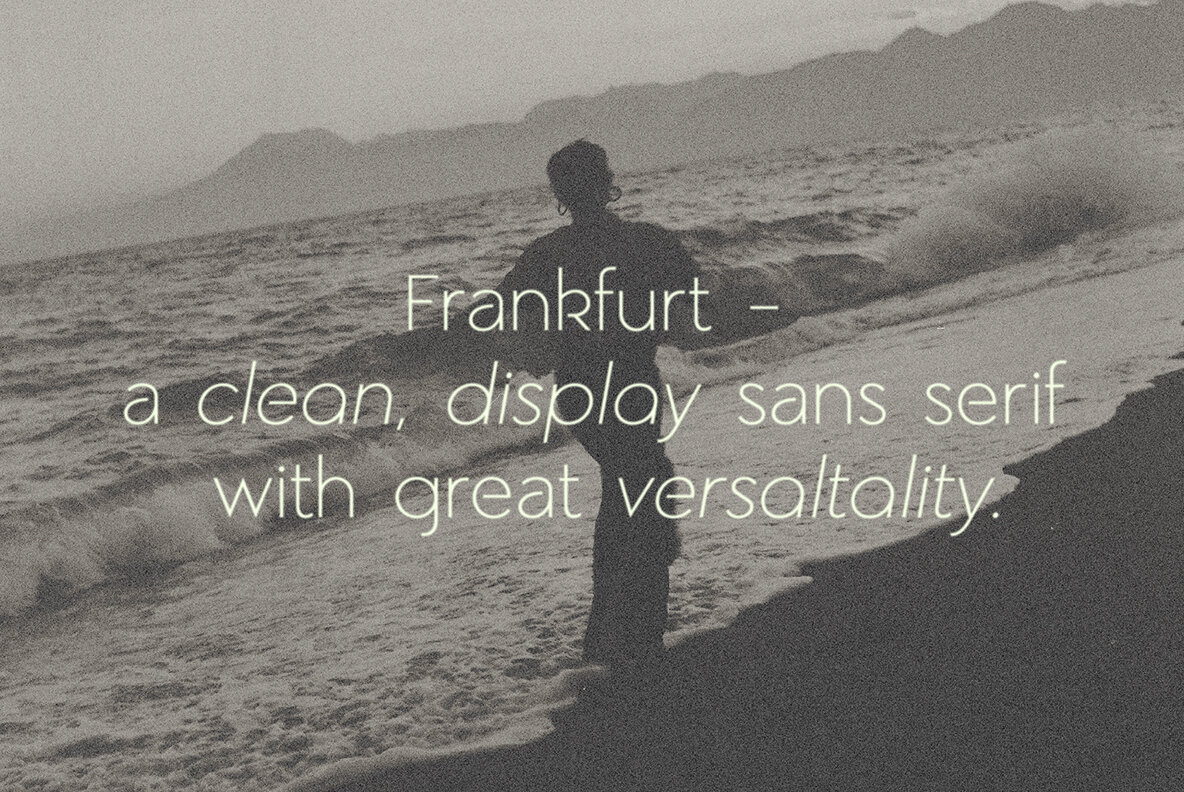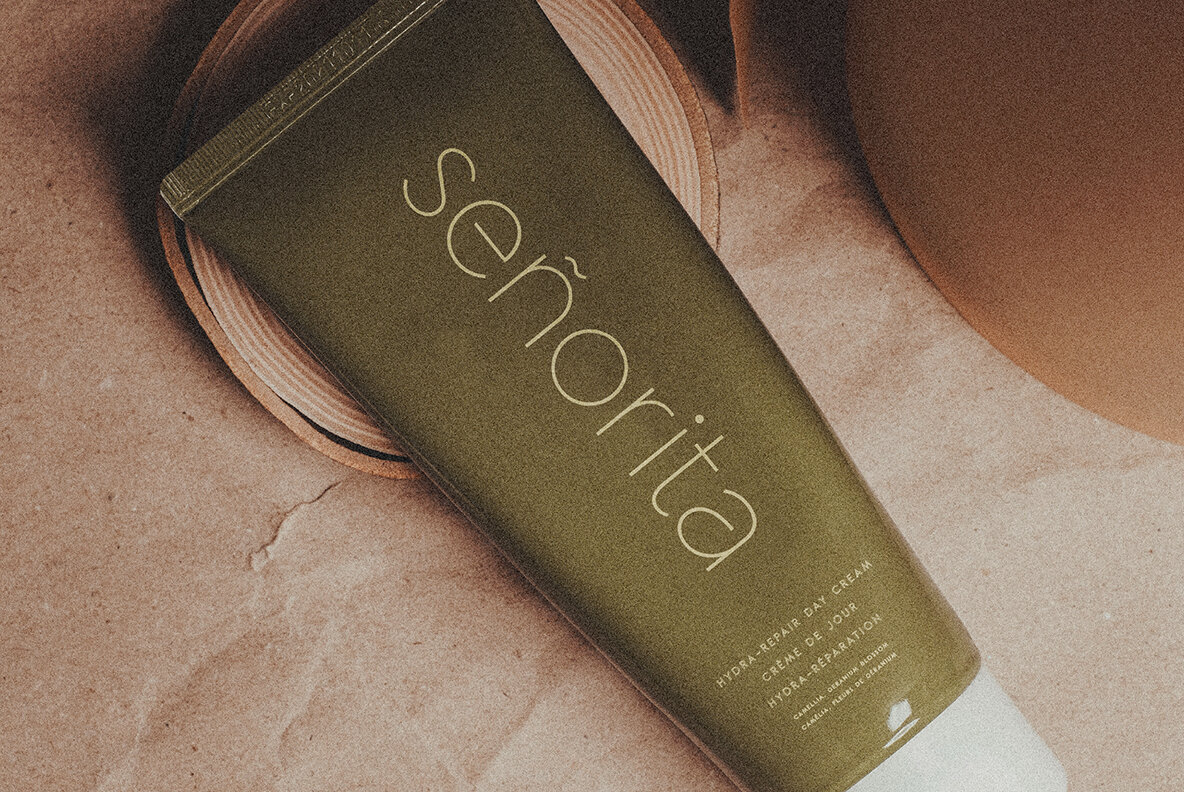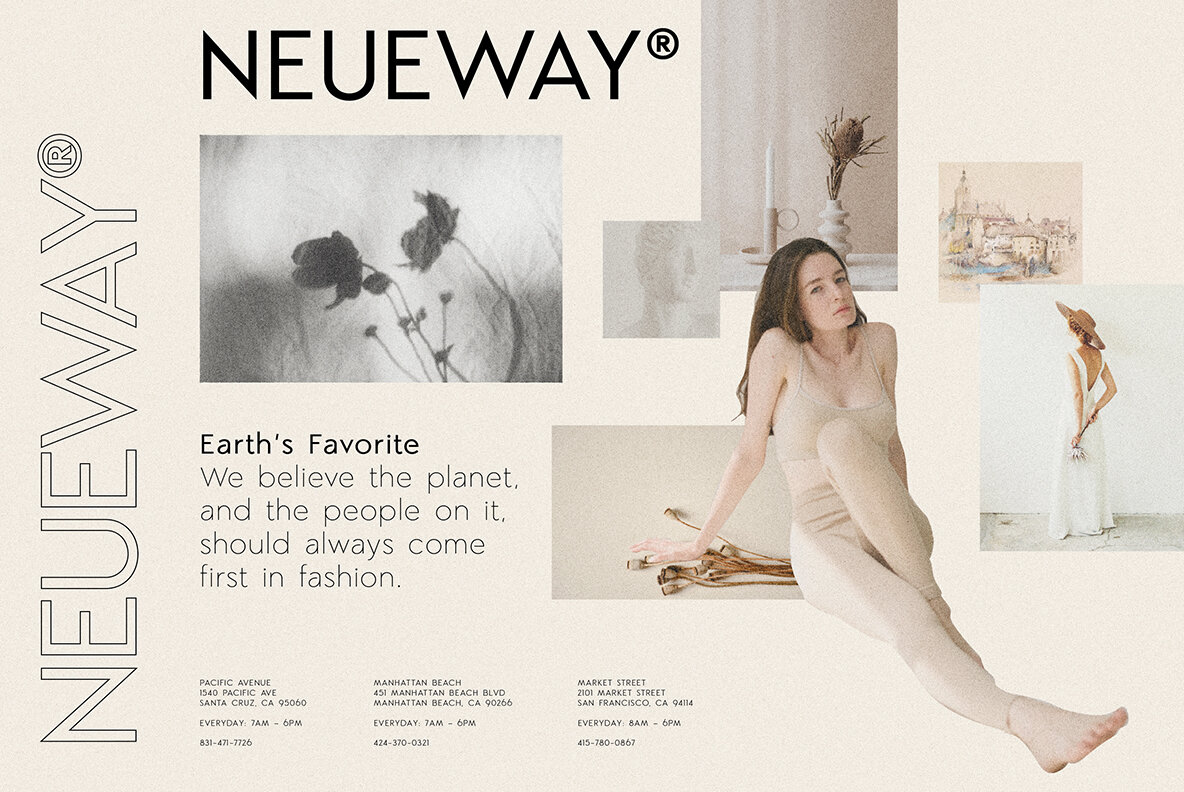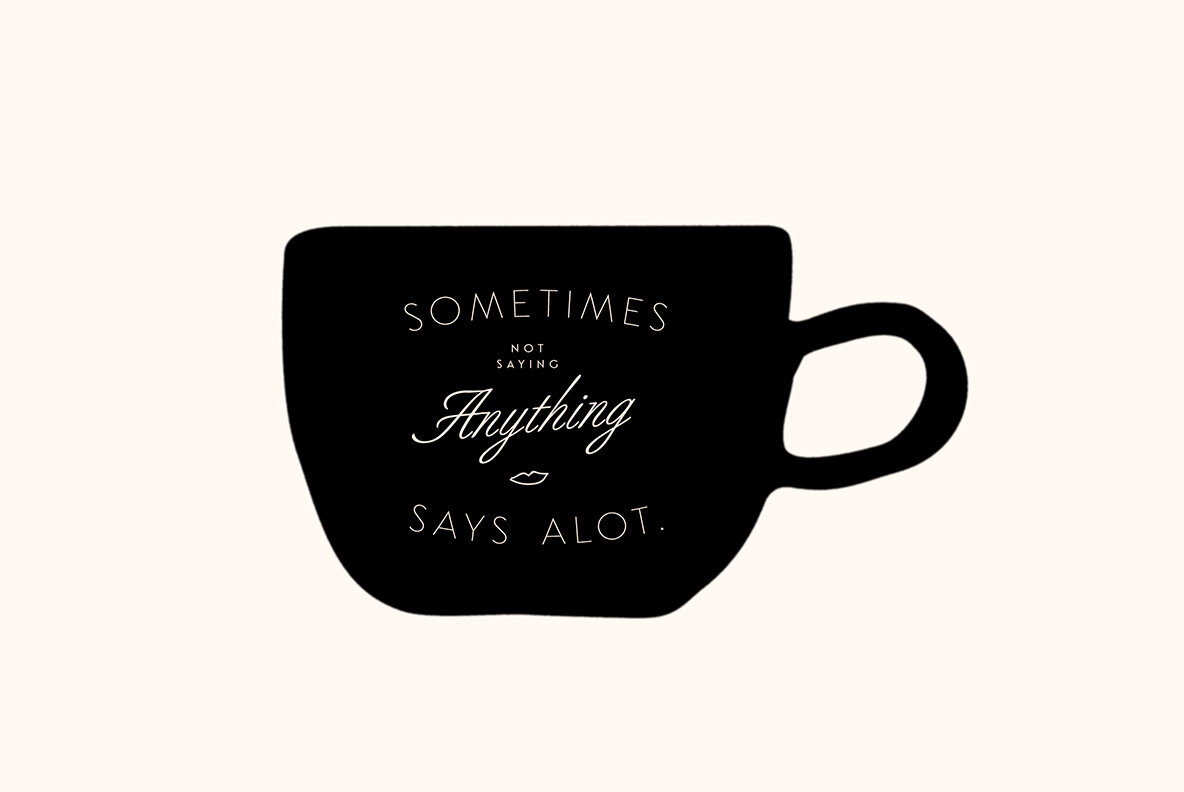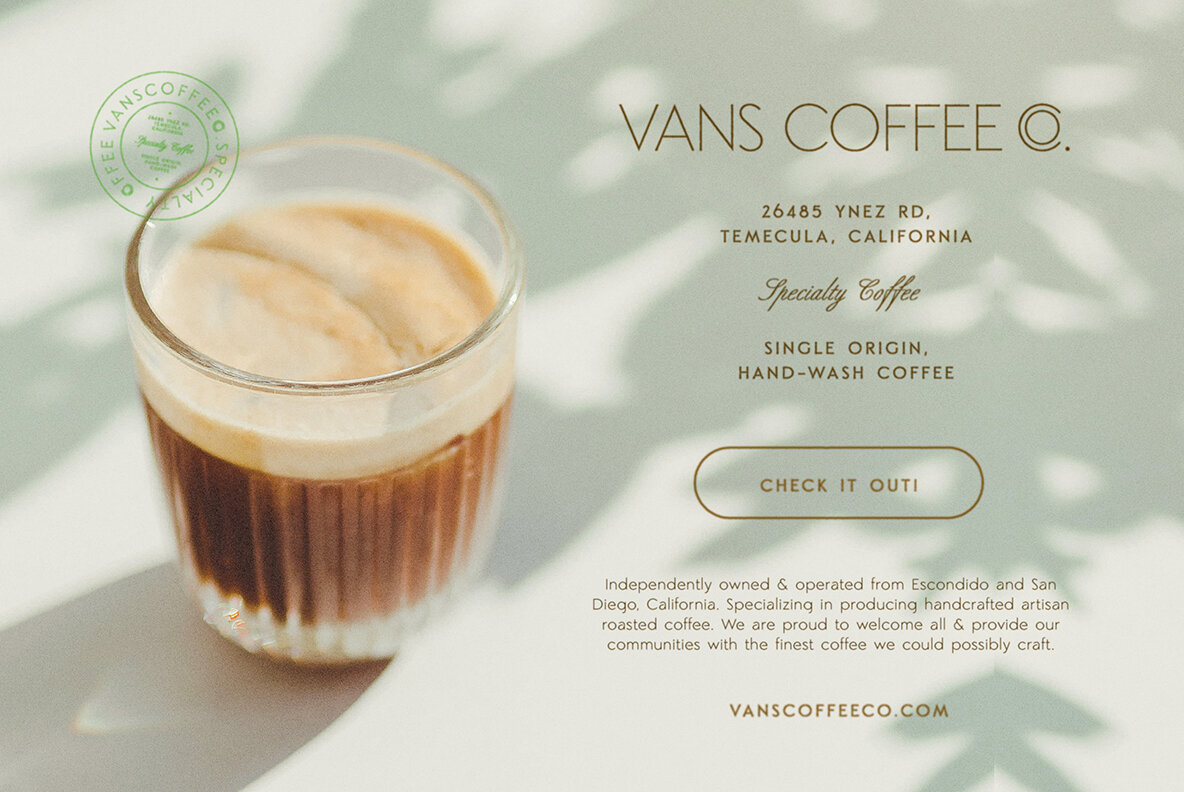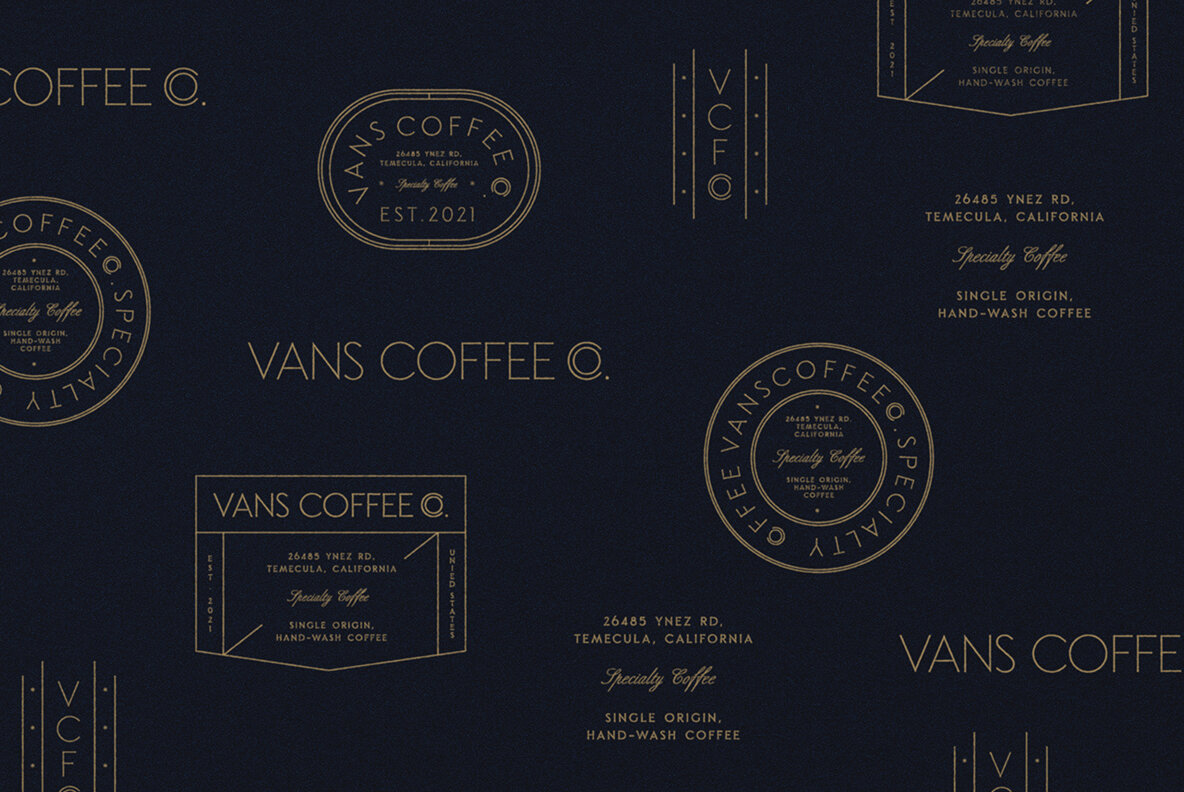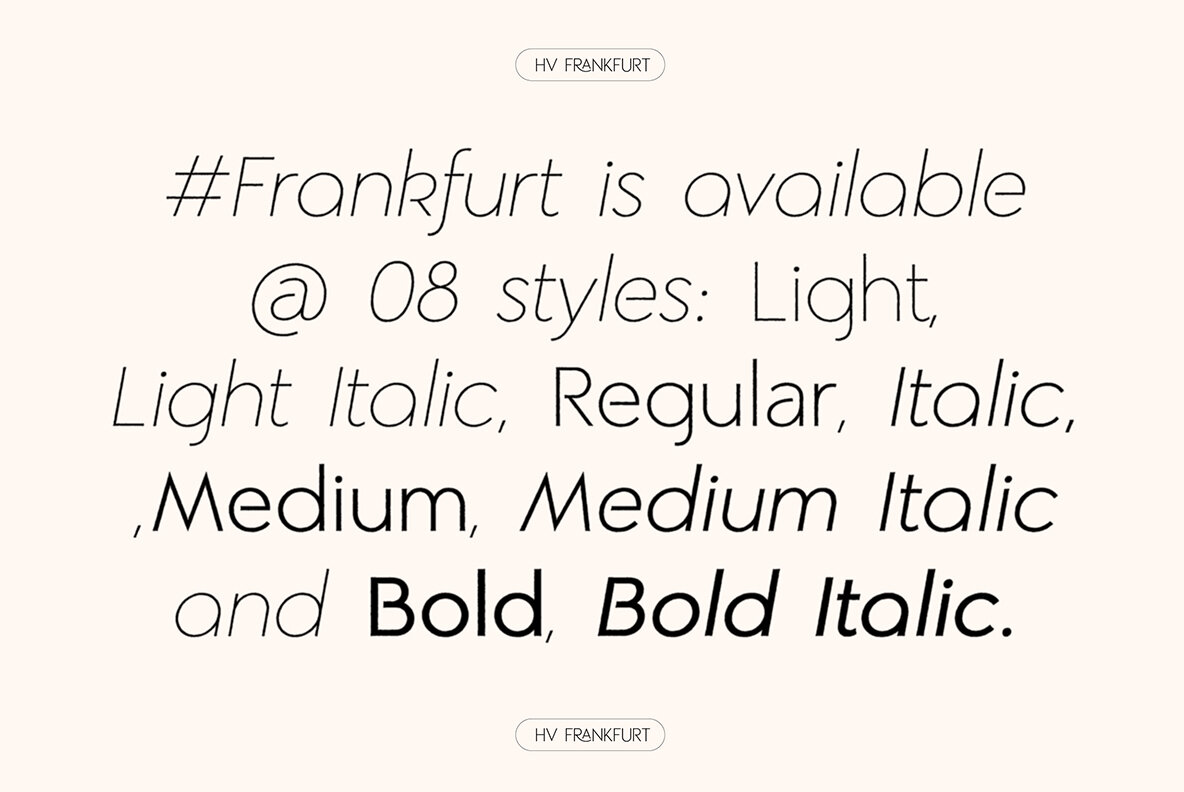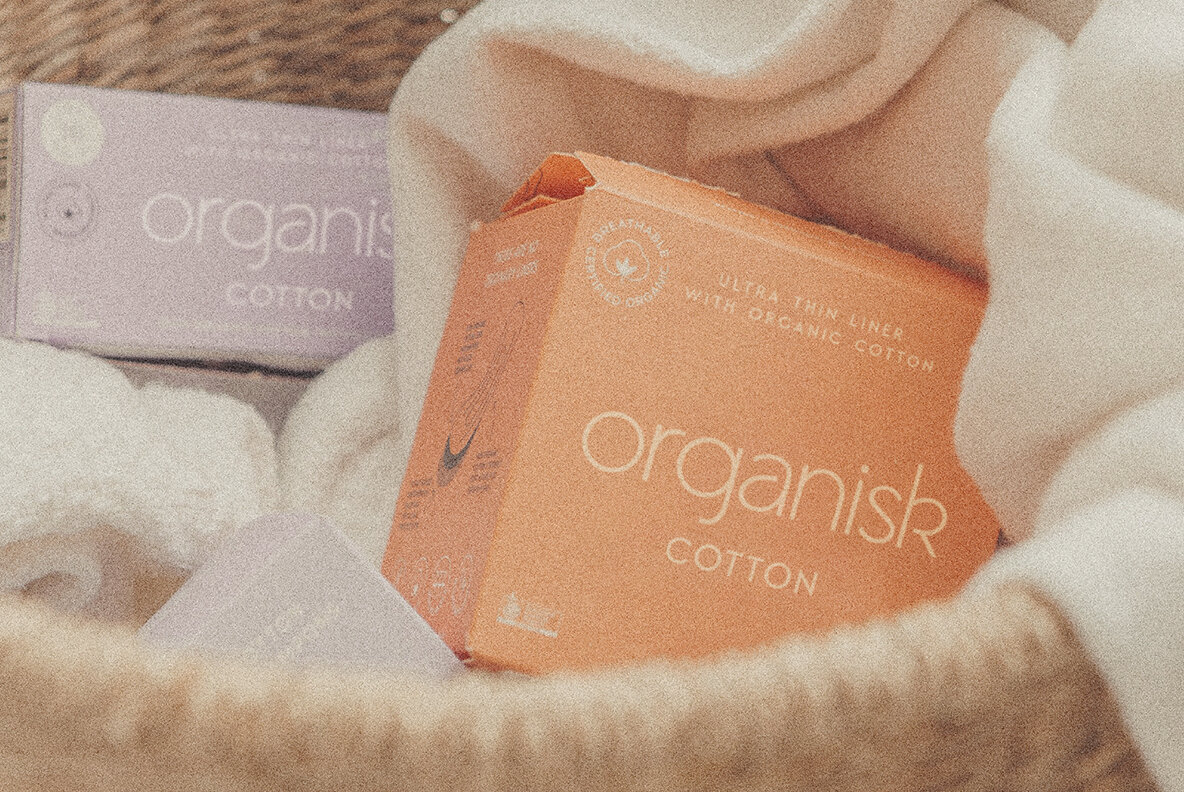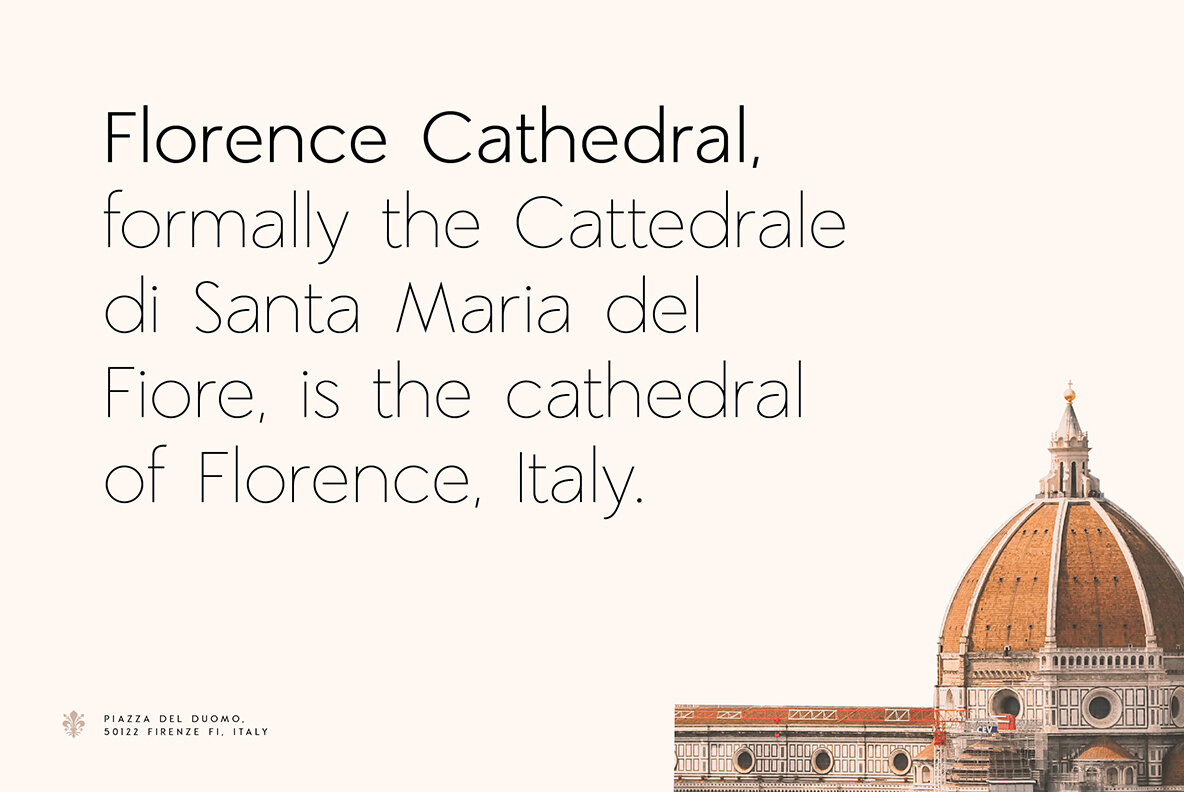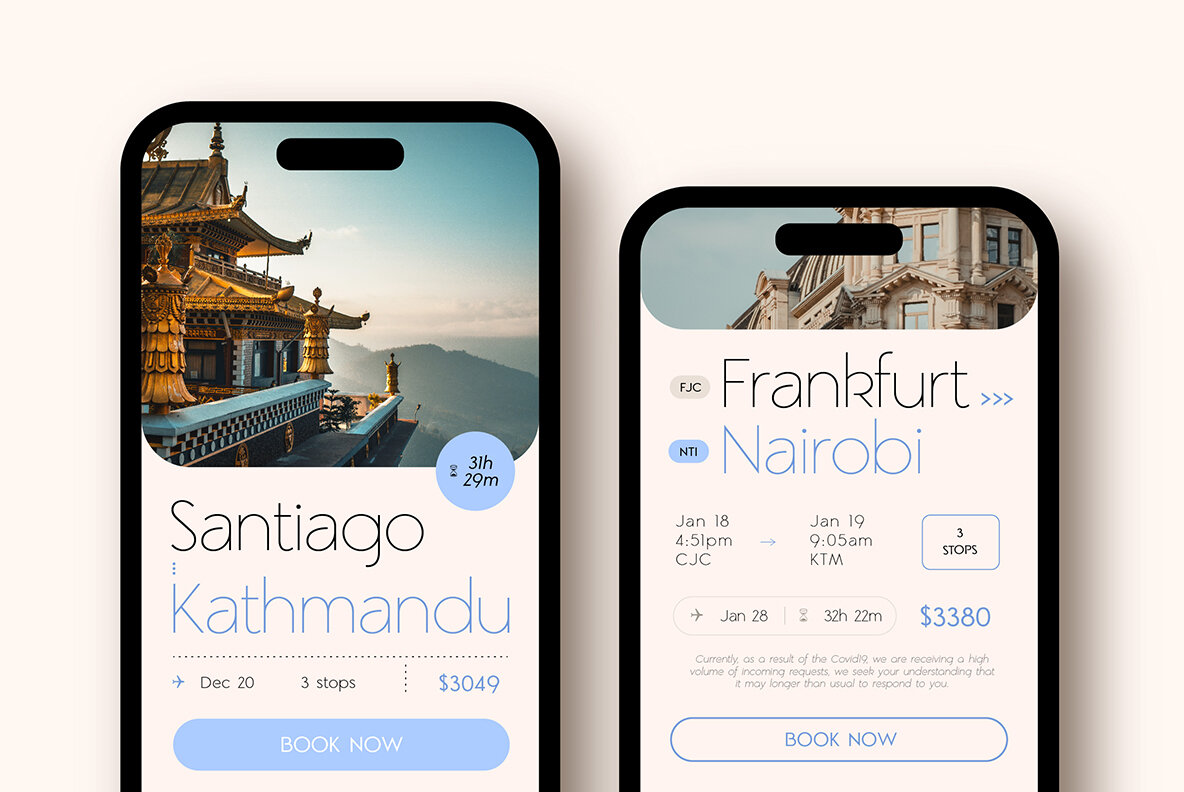
HV Frankfurt Font
In the world of typography, the HV Frankfurt font stands out as a quintessential choice for designers seeking a clean and versatile sans serif font. Its crisp lines and refined structure make it suitable for a wide range of applications. From crafting elegant branding to creating cohesive editorial designs, this font lends itself to both modern and classic aesthetics.HV Frankfurt: Clean Display Sans Serif With Versatility